10 Best Free Fonts for Websites
The best website fonts are sans-serif typefaces specifically designed for optimal display across all screen sizes, from smartphones to large 50-inch displays.
Top Web Font Recommendations:
- Open Sans
- Designer: Steve Matteson (Google)
- Key Feature: Optimized for readability across all devices
- Styles: 10 variations
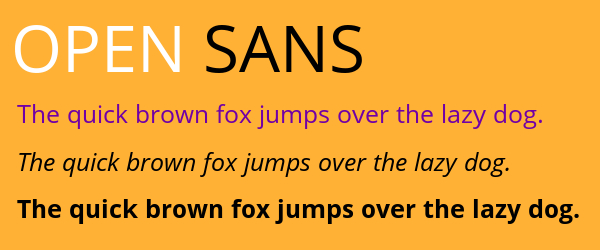
- Quicksand
- Designer: Andrew Paglinawan
- Key Feature: Modern, lightweight design
- Styles: 7 variations
- Roboto
- Designer: Christian Robertson (Google)
- Key Feature: Default Android system font
- Styles: 18 variations
- Aller
- Designer: Dalton Maag, Ltd.
- Key Feature: Classic British typeface
- Styles: 7 variations
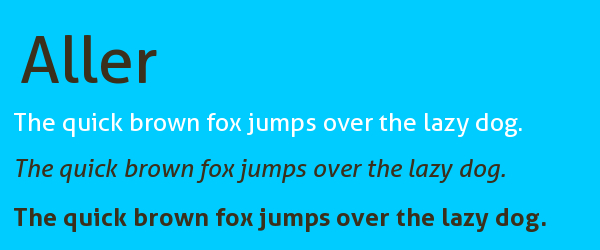
- Raleway
- Designer: Matt McInerney
- Key Feature: Elegant thin design
- Styles: 18 variations
- Lato
- Designer: Łukasz Dziedzic
- Key Feature: Warm, highly readable
- Styles: 18+ variations
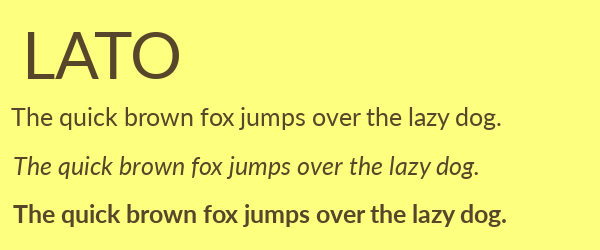
- PT Sans
- Designer: ParaType
- Key Feature: Supports Cyrillic & Latin scripts
- Styles: 8 variations
- Oswald
- Designer: Vernon Adams
- Key Feature: Modern Alternate Gothic revival
- Styles: 15 variations
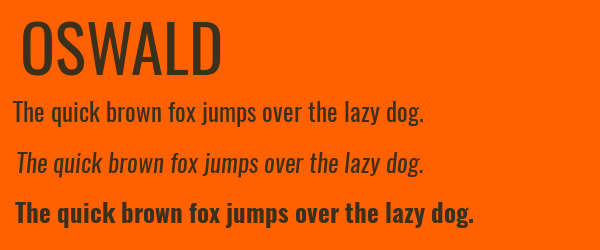
- League Gothic
- Designer: The League of Moveable Type
- Key Feature: Bold display font
- Styles: 4 variations
- Caviar Dreams
- Designer: Lauren Thompson (Nymphont)
- Key Feature: Luxurious modern aesthetic
- Styles: 4 variations
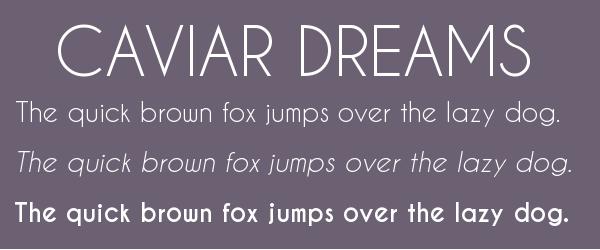
Font Selection Tips:
- Prioritize readability across devices
- Consider multilingual support
- Test display on various devices